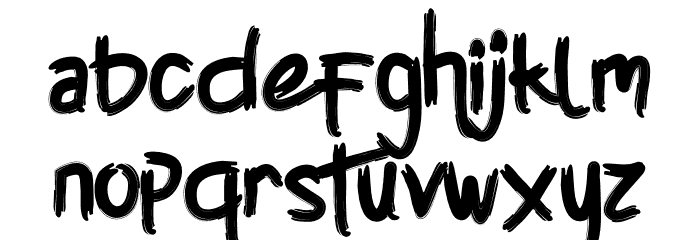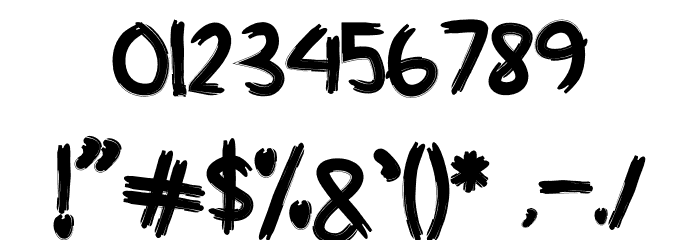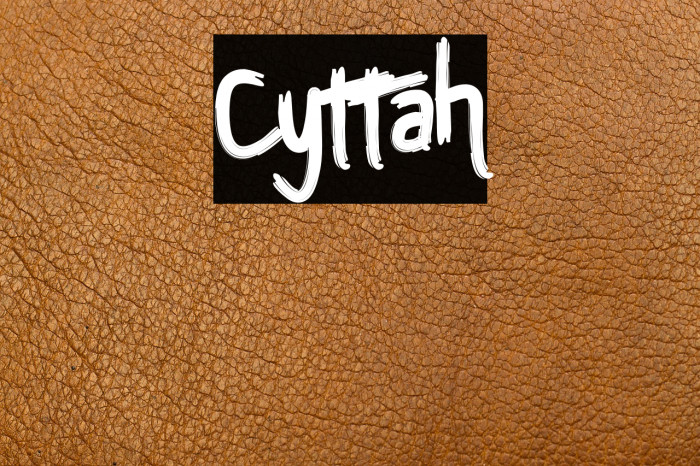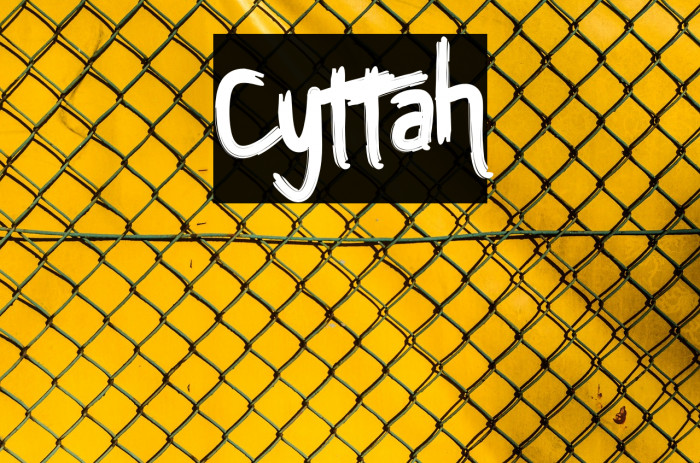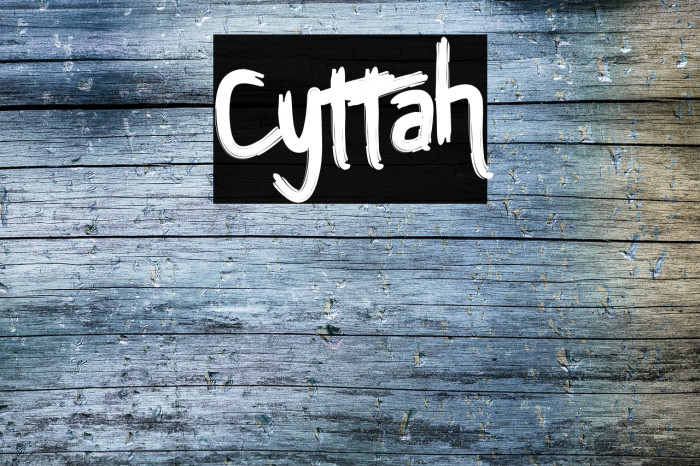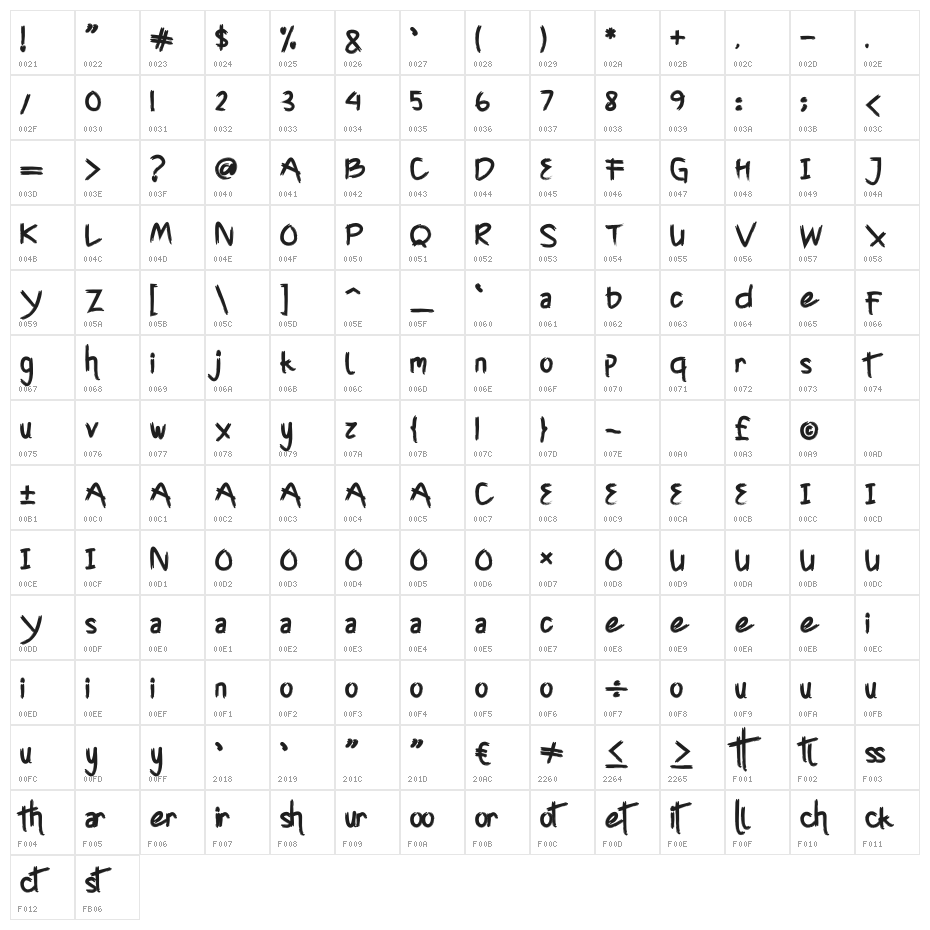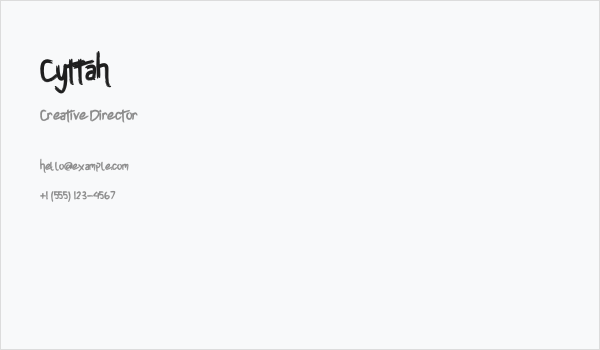
Cyttah Font
This font features a bold and expressive brush style, characterized by its dynamic and energetic strokes. The letters have a hand-painted appearance, with varying thicknesses that convey a sense of movement and creativity. The uppercase and lowercase characters maintain a consistent style, with slightly exaggerated curves and angles that add to the font's artistic flair. Numbers and special characters are equally bold, ensuring a cohesive look across all text elements. The font's unique style makes it stand out, perfect for projects that require a touch of personality and artistic expression.
A bold, brush-style font with dynamic and expressive strokes.
- Proposed Projects: Ideal for artistic projects, branding, posters, and creative advertisements.